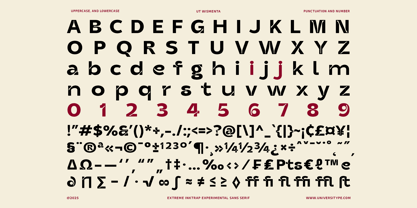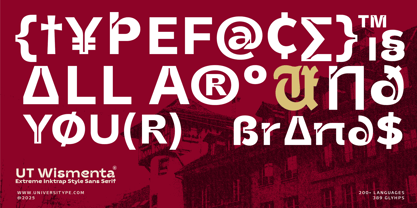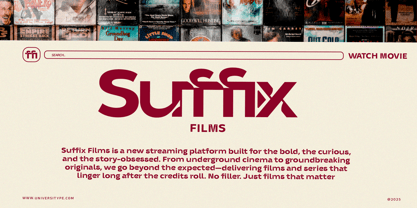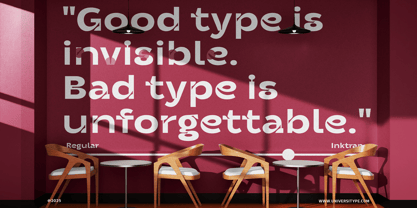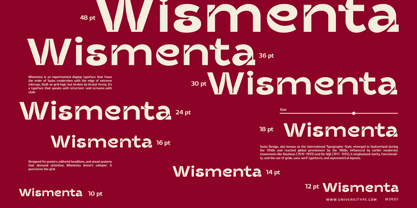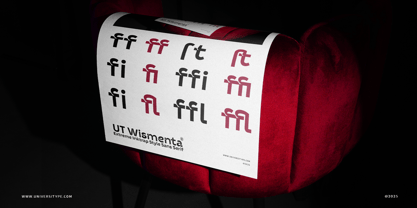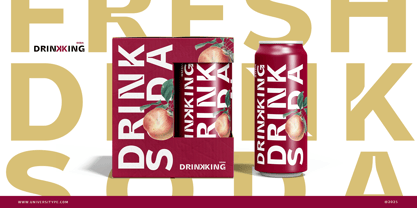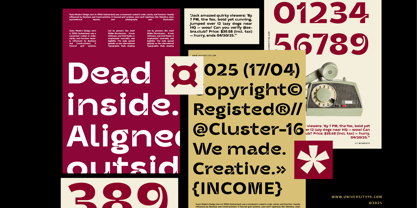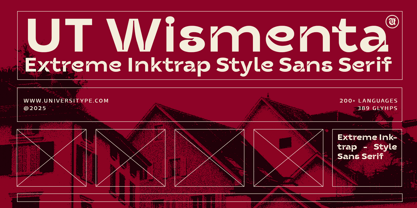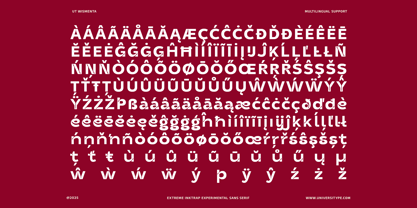
UT Wismenta
The UT Wismenta Font Family was designed by Muh. Aswar, Novan Arisandi and published by Universitype. UT Wismenta contains 1 styles. More about this family
UT Wismenta pulls from the timeless ideas of the Swiss Design movement, it influenced by earlier modernist movements like Bauhaus (1919-1933) and De Stijl (1917-1931), Swiss Design emphasized clarity, functionality, and the use of grids, sans-serif typefaces, and asymmetrical layouts.
The Bauhaus movement, with its focus on the unity of art, craft, and technology, laid the groundwork for a design aesthetic that was both practical and visually striking. De Stijl, with its emphasis on simplicity and abstraction, further refined this aesthetic, using primary colors and geometric forms to create a sense of order and balance.
Swiss Design took these principles and ran with them, creating a style that was both rigorous and playful, structured yet free-spirited. It was a design revolution that swept through Switzerland and beyond, influencing everything from advertising to architecture, from book design to product packaging.
Key Features
• Extreme Inktrap Style: Sharp, exaggerated inktraps give the font a striking, handcrafted feel.
• Versatile Across Sizes: Looks sharp from 10pt to 48pt, keeping its impact and clarity at any scale.
• Multilingual Support: Covers over 200 languages, making it a solid choice for global projects.
• Wide Glyph Set: 389 glyphs give you plenty of options for different characters and symbols.